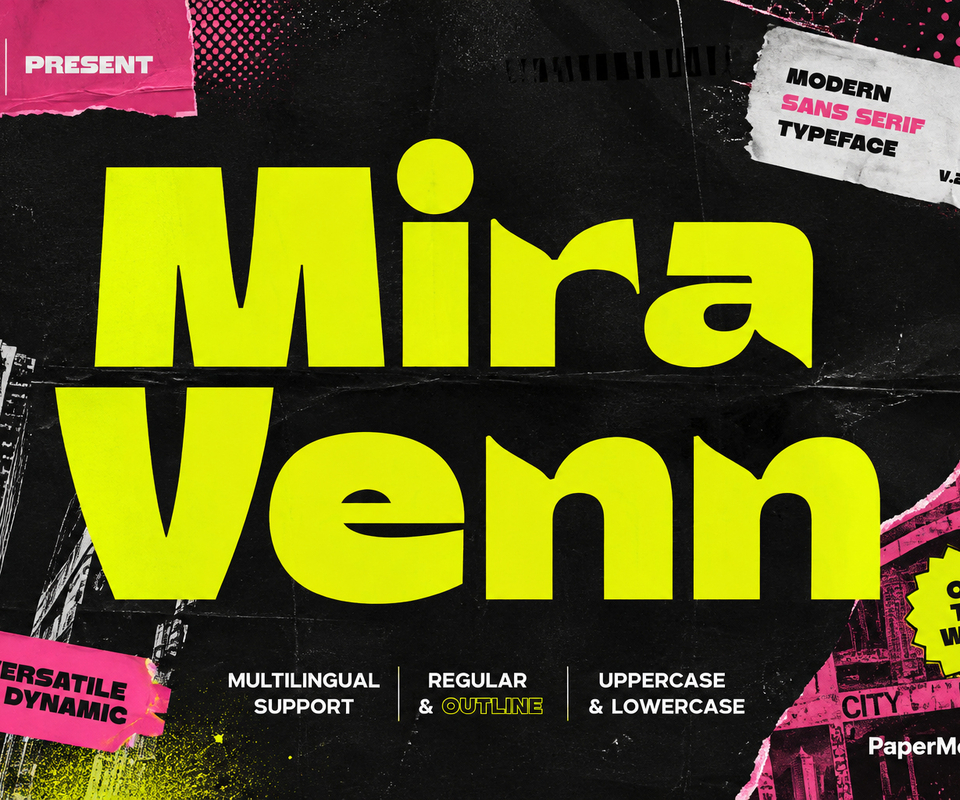
Mira Venn - Chunky Playful Sans Serif Display Font
Mira Venn is a chunky modern sans serif display font with a funky, playful personality, bold forms, and soft corners. It gives headlines, logos, and brand lettering a friendly presence with enough visual weight to stand out in a busy layout.
What it is: Mira Venn is a single-style Regular font made for display typography and expressive everyday design work. Its rounded, chunky sans serif shapes are especially effective when a clean modern font needs more warmth, movement, and character. The supplied font includes 262 glyphs covering uppercase and lowercase letters, numbers, symbols, punctuation, and accented characters.
Key Features: Mira Venn includes 40 alternates and ligatures to help you shape more distinctive lettering. Use alternate characters to vary repeated letters, adjust the rhythm of a wordmark, or give a short headline a more individual look. Ligatures provide connected treatments for supported letter combinations. These OpenType features are available in software that exposes standard OpenType controls, while the core font remains straightforward to install and use in basic font-compatible programs.
Applications: Use this playful sans serif font for logos, modern branding, bold wordmarks, posters, packaging, product labels, editorial headlines, campaign titles, social media graphics, apparel lettering, presentations, and website display text. The chunky display font style works well for creative businesses, lifestyle products, food and beverage brands, youth-oriented campaigns, event graphics, and other projects that need bold branding with a softer edge. Its friendly rounded lettering can make a short phrase feel approachable without losing impact.
Language Support: Mira Venn supports Danish, English, Estonian, Filipino, Finnish, French, Friulian, Galician, German, Gusii, Indonesian, Irish, Italian, Luxembourgish, Norwegian Bokmal, Norwegian Nynorsk, Nyankole, Oromo, Portuguese, Romansh, Rombo, Spanish, Swedish, Swiss-German, and Uzbek Latin. This multilingual font support is useful for international branding, packaging, editorial graphics, campaigns, and digital content requiring broader Latin-language coverage.